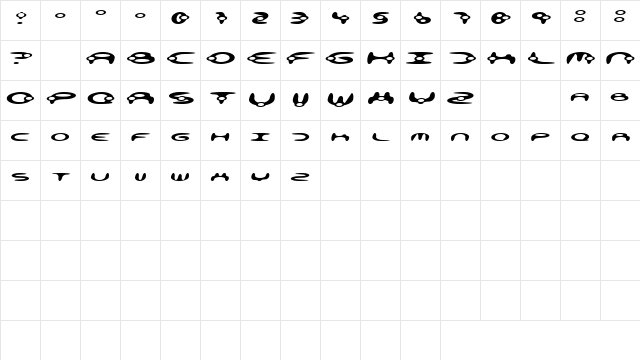
alienation Regular Font Preview
alienation Regular
alienation Regular Font Details
Design Context for alienation Typeface
alienation is a composed and adaptable typeface that performs quietly and consistently across a wide range of design contexts.